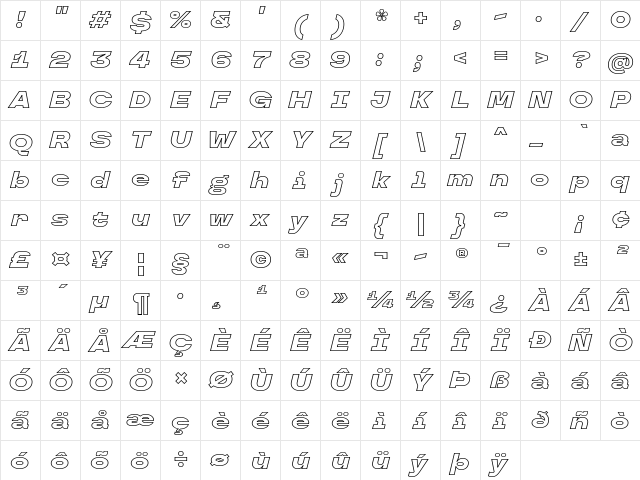
TT Travels Next Trl Blc Outline It
Style: Blc Outline It
Designer: Designed by Kseniya Karataeva, Yulia Gonina. Technical designers Yuriy Nako, Kirill Maslov, Ivan Gladkikh, Victor Rubenko.
Design Context for TT Travels Next Trl
TT Travels Next Trl is built around its visual character rather than neutral utility - its distinctive forms are designed to make an impression at display sizes.
Font Pairing: Pair with a clean neutral sans-serif for body copy to let TT Travels Next Trl's character lead without overwhelming the composition.
Pro Tip: Use TT Travels Next Trl exclusively at display sizes - it was designed to be seen, not read at length. Let a neutral companion handle body copy.